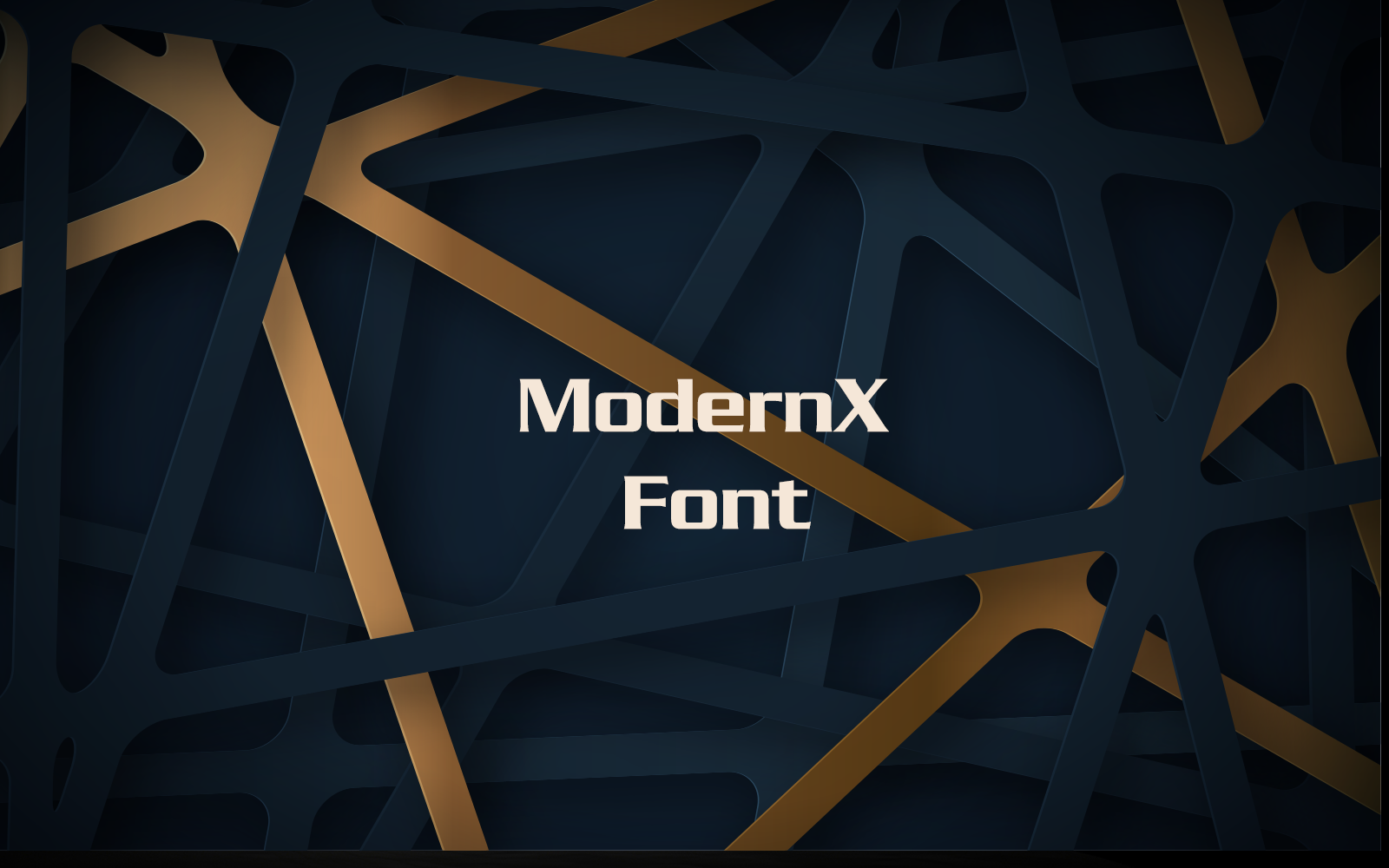
magine a bold, modern typeface that exudes strength and contemporary style. Its thick strokes and elegant curves give it a polished, sophisticated look,
making it perfect for posters, logos, and important headlines. Despite its weight, the font remains balanced and refined, projecting a sense of confidence without sacrificing beauty.
It’s a font designed to make a statement, ideal for designs that need to grab attention and convey a modern aesthetic.